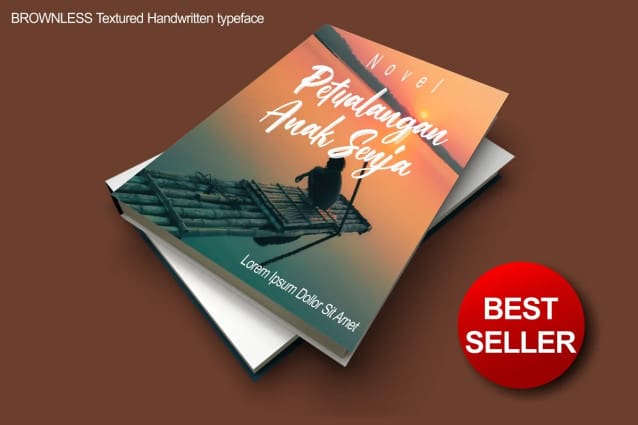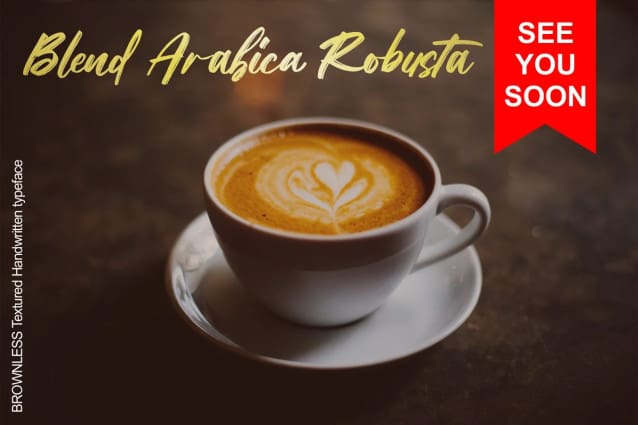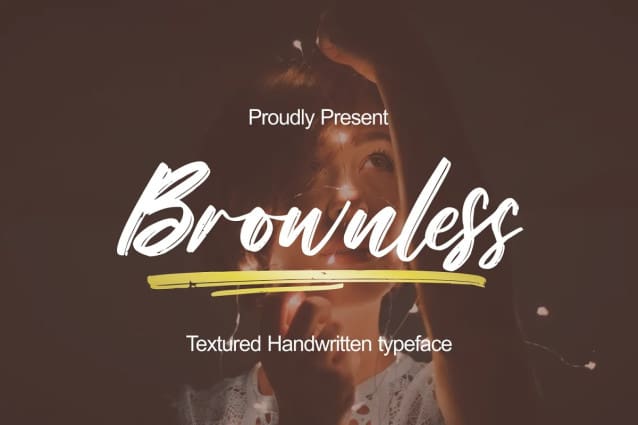
Brownless Brush Font
Brownless Brush Font, This is a modern script font with a texture brush ink style. Recommended for those of you who want to create some designs with textures in font styles. This font will work for invitation designs, logos, badge designs, posters, packaging, book cover titles, quotes, social media posts, etc. Just go to your Opentype feature when using script fonts to use ligatures and swashes. Additionally, this font includes alternatives for upper and lower case characteristics.